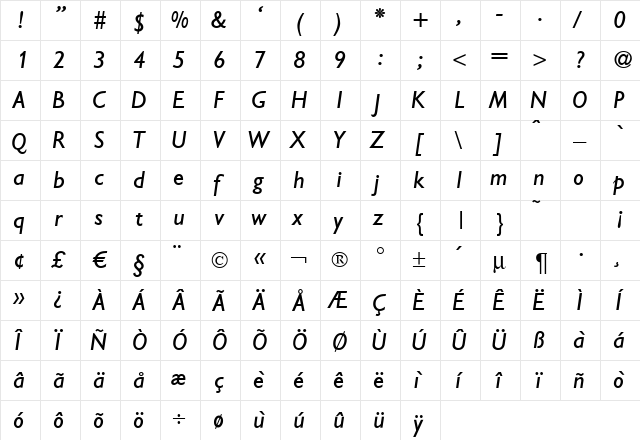
Gibson Italic
Design Context for Gibson Typeface
Gibson is a composed and adaptable typeface that performs quietly and consistently across a wide range of design contexts. The slanted form adds forward momentum and visual energy.
Pro Tip: Try Gibson for annotation and caption copy alongside an upright companion — the contrast in angle creates a dynamic but ordered typographic system.